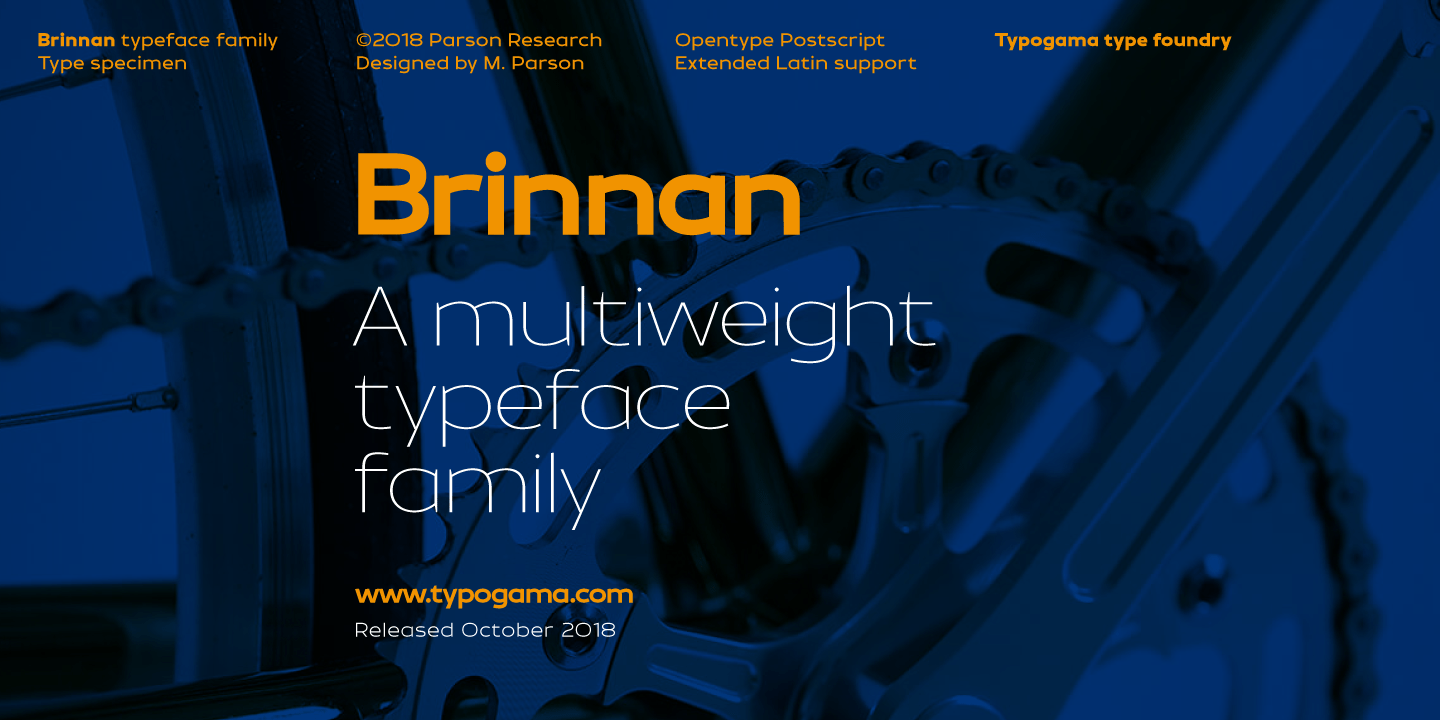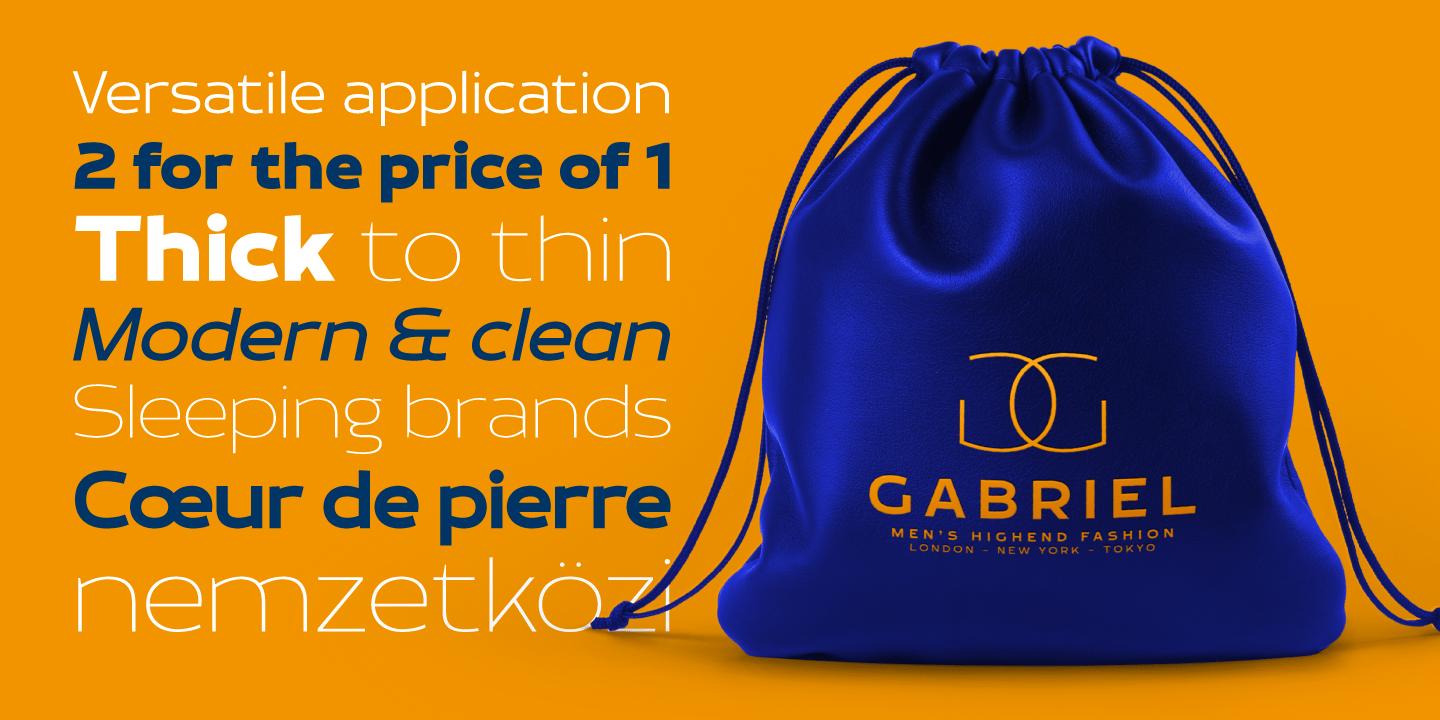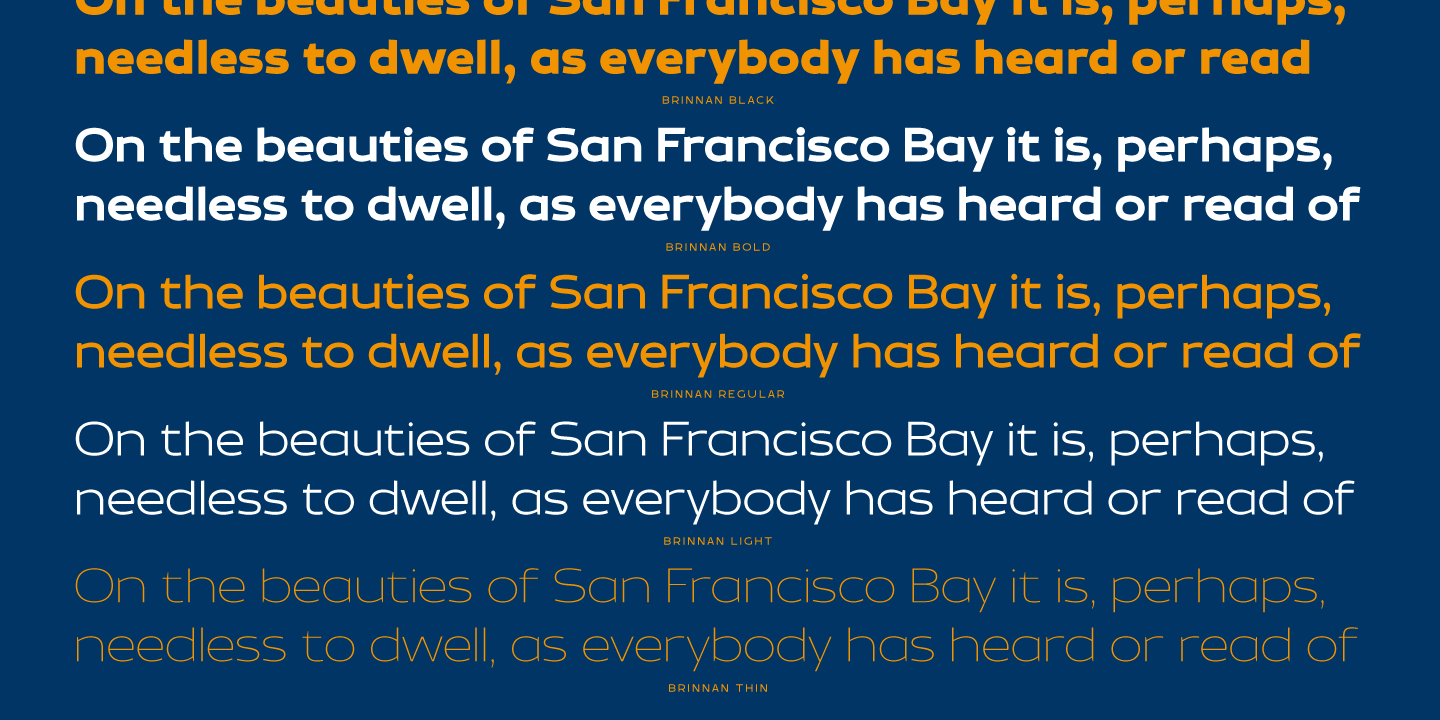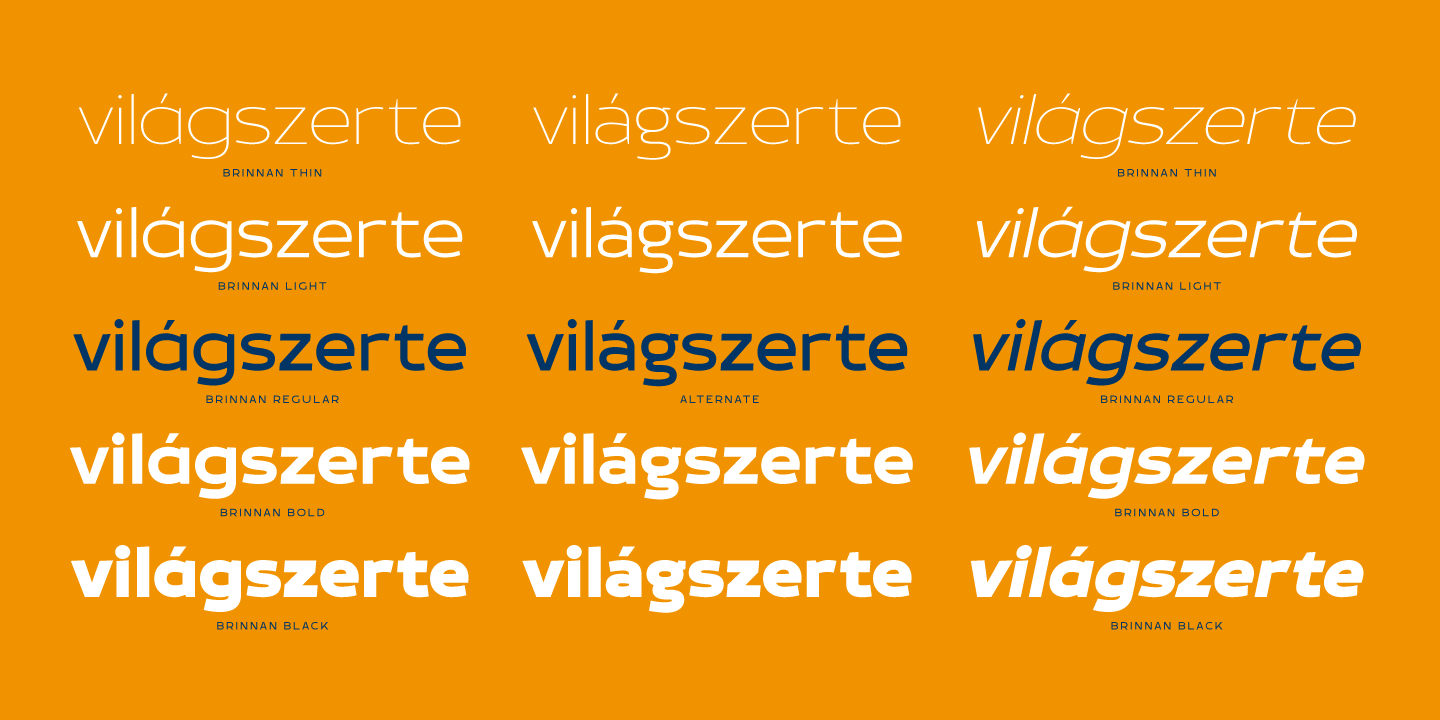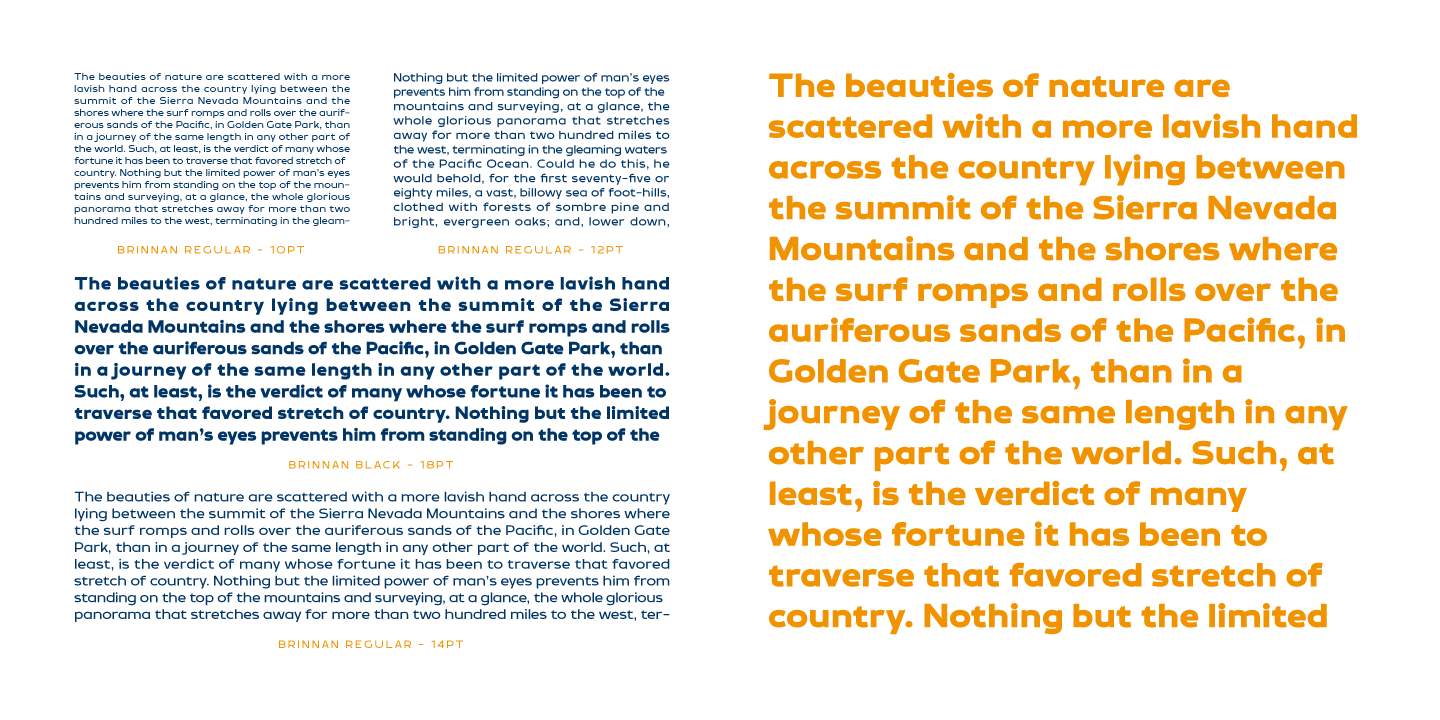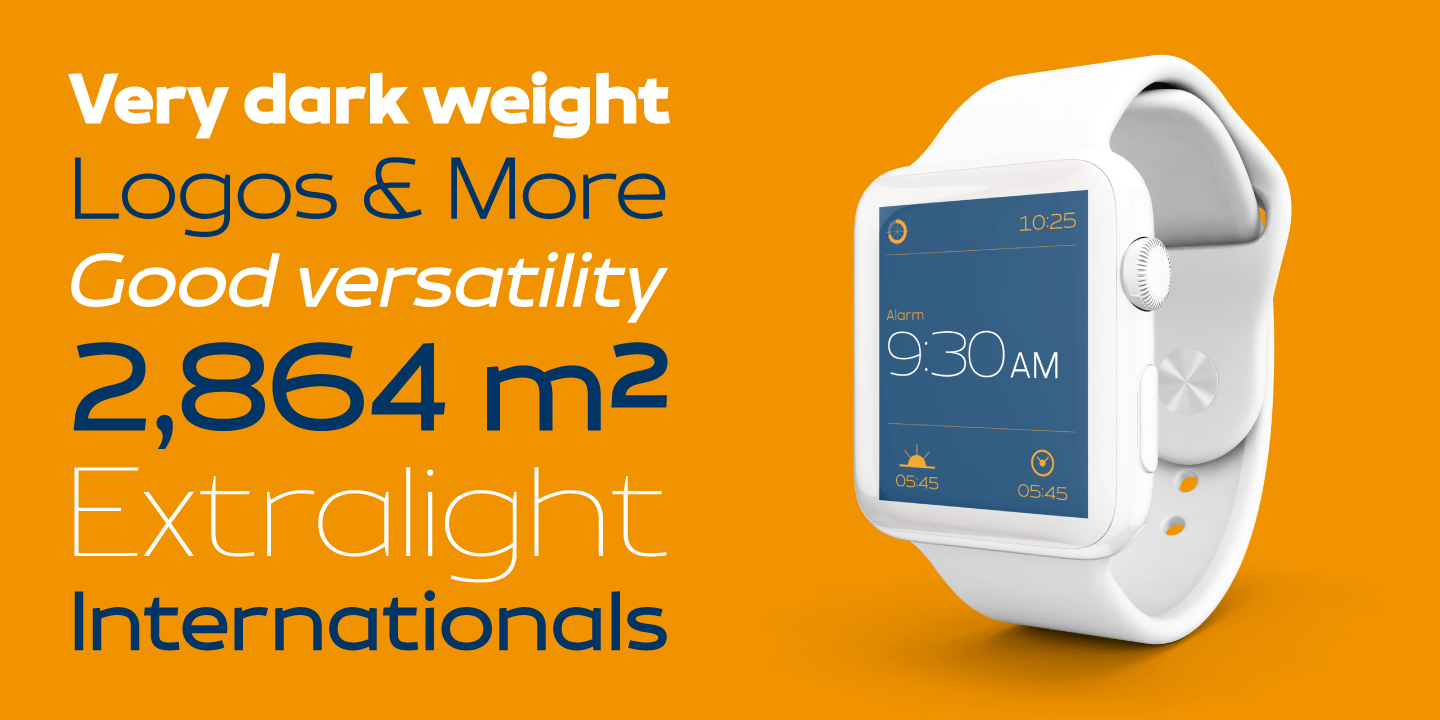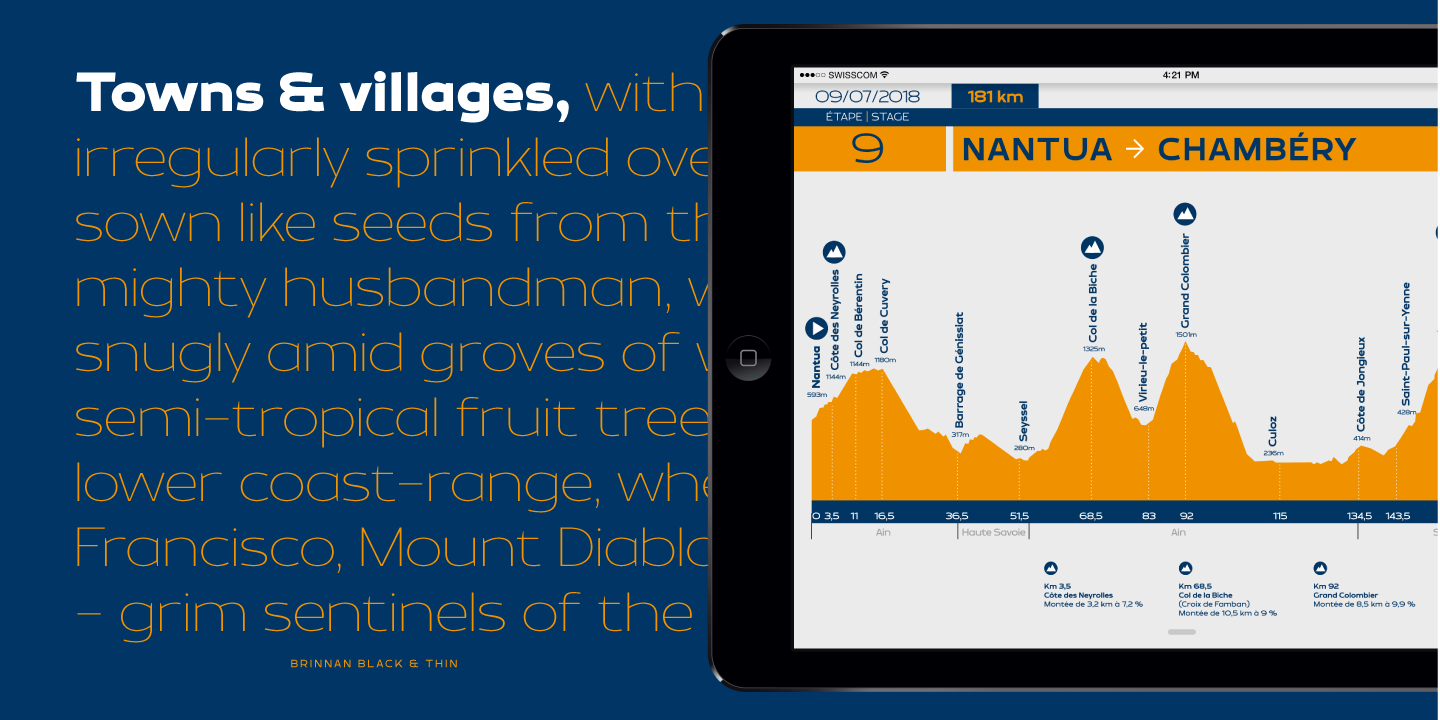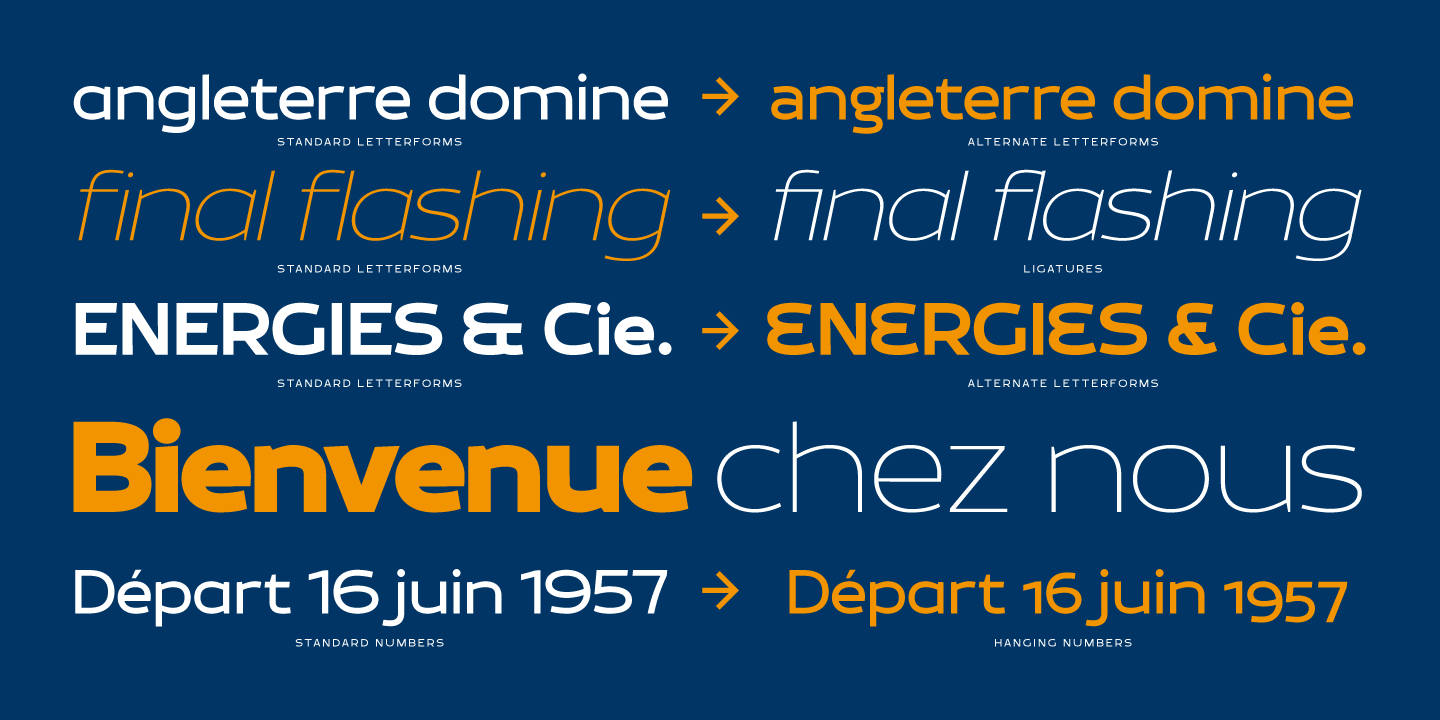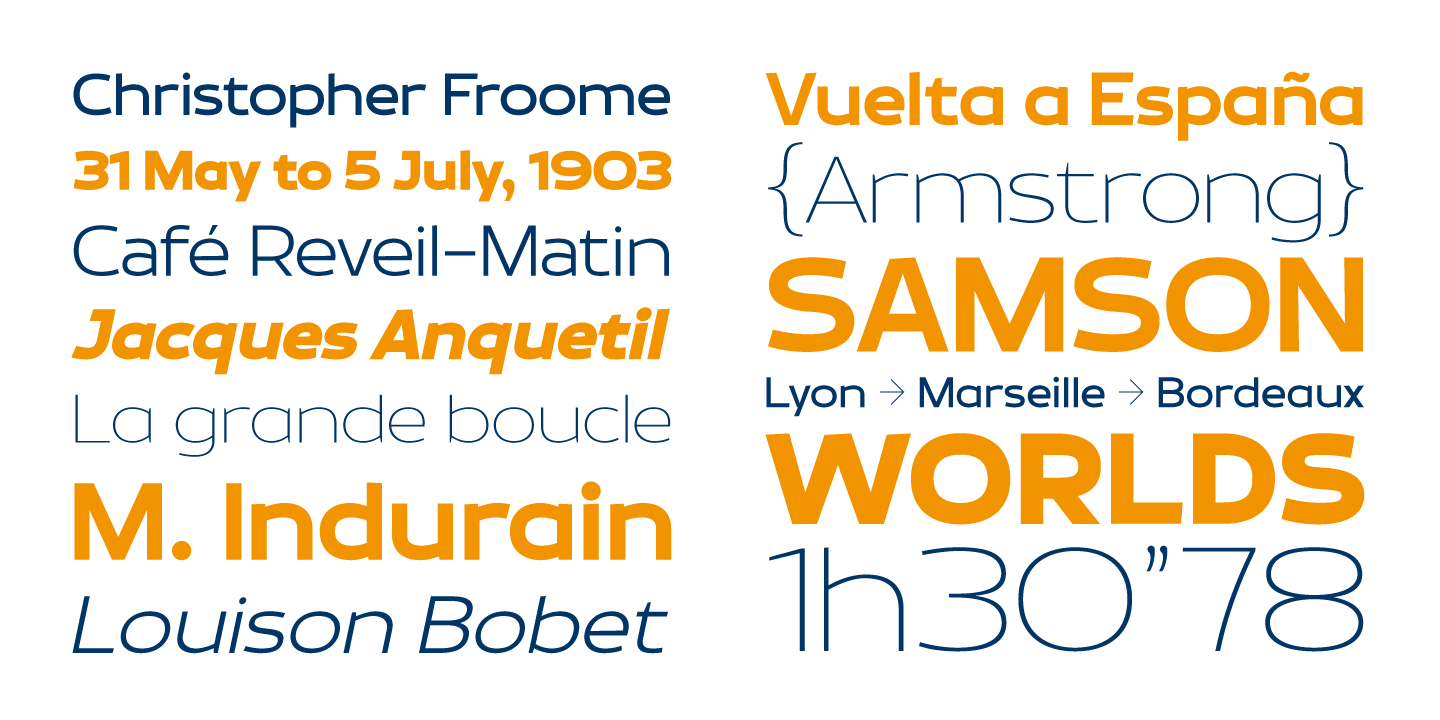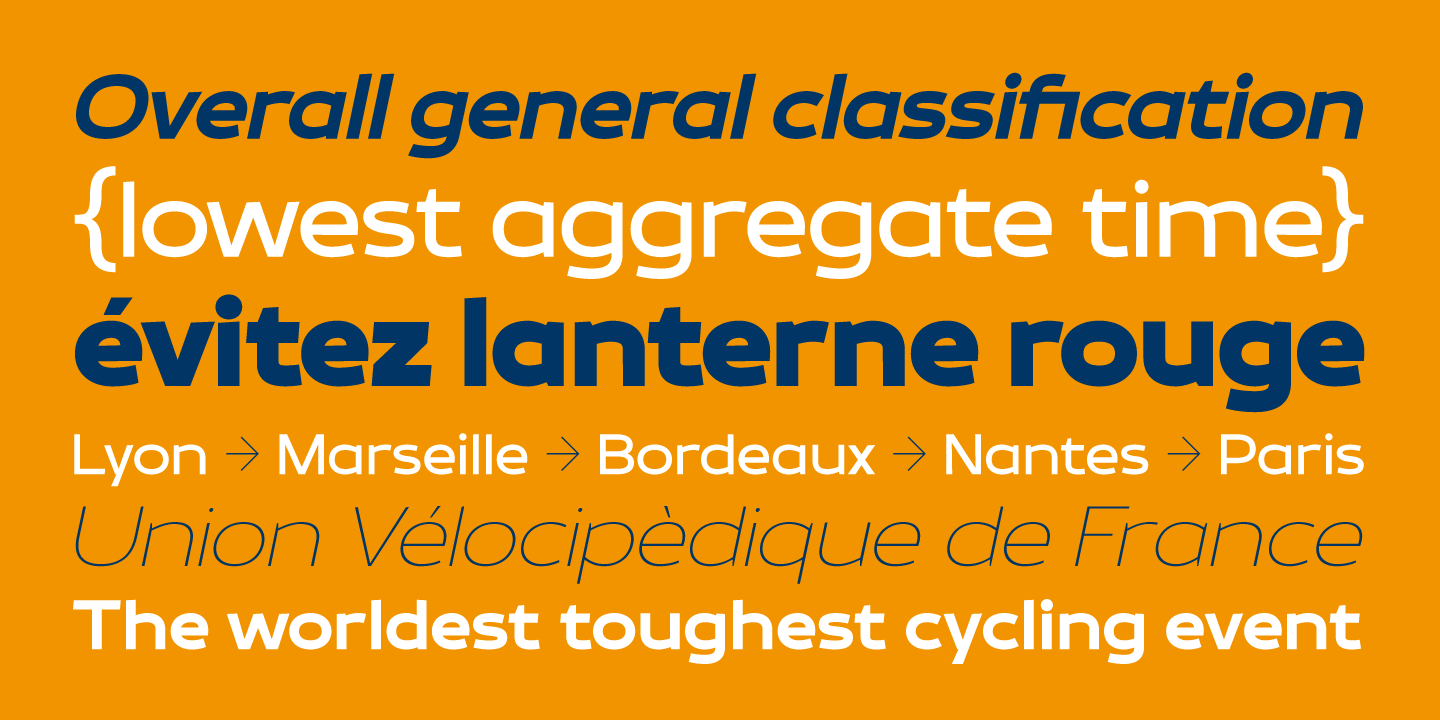
Brinnan
Font Family by Typogama
Brinnan is a wide, contemporary sans serif typeface that was conceived as a branding and editorial solution. With it's ten weights, ranging from an elegant Thin weight to a solid and dense Black weight, this family was designed as a versatile and flexible that can be used on a range of projects and mediums.